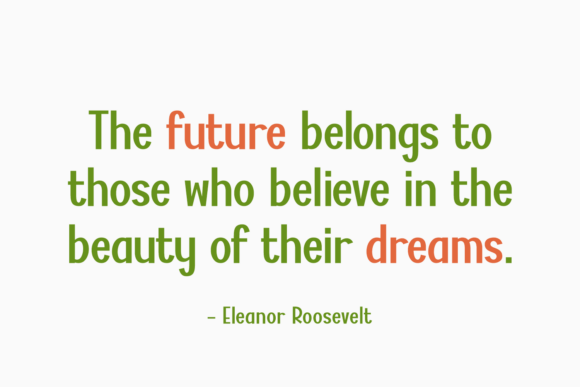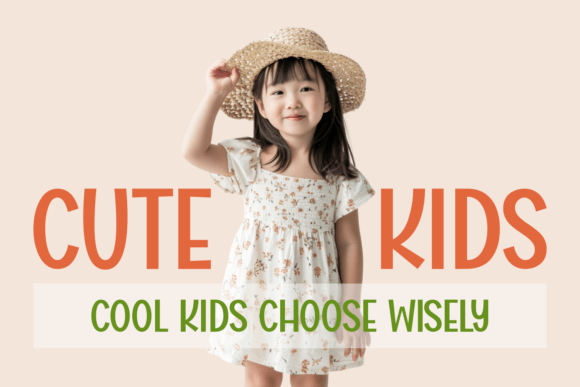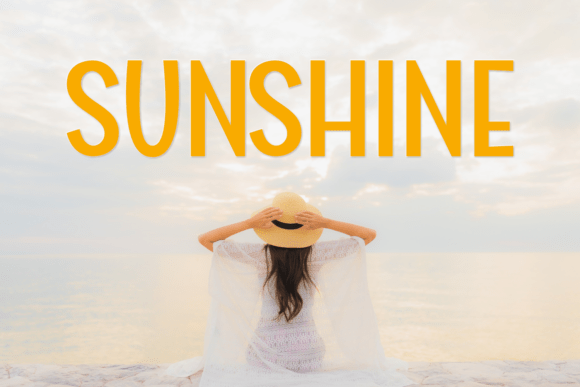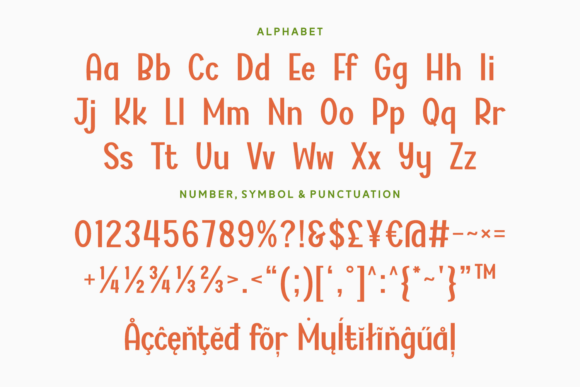
Introduction to Hello Lemon Font
Have you ever stared at a blank canvas, eager to bring a fresh idea to life, only to be stopped by the daunting task of choosing the perfect font? We’ve all been there, struggling to find the perfect combination of style and readability to convey our message. But what if I told you that there’s a font that can make your creative project shine, effortlessly exuding a friendly and approachable vibe?
Enter Hello Lemon Font, a delightful sans serif font that’s perfect for designers seeking a lighthearted and modern aesthetic. Its clean lines and soft appearance make it highly readable and appealing, making it an ideal choice for a variety of uses, from children’s books to social media graphics. With its free download and high-quality design, Hello Lemon Font is a valuable resource for any designer looking to add a touch of whimsy and charm to their work.
Whether you’re working on a branding project, designing greeting cards, or creating educational materials, Hello Lemon Font is sure to deliver a fresh and optimistic look that’s sure to captivate your audience.
Key Features of Hello Lemon Font
- High-quality design for creative projects, ideal for logos, branding, and typography.
- Designed at a high resolution of 300 DPI, ensuring crisp and clear typography in print and digital applications.
- Perfect for designers looking for a unique and modern font to elevate their creative project, with a size of 30KB.
- Suitable for use in a variety of design contexts, from web design to print materials, and can be easily scaled up or down for different applications.
Honest Review: Hello Lemon Font
As a designer, I’m always on the lookout for high-quality design resources to elevate my creative projects. Recently, I stumbled upon the Hello Lemon Font, and I must say it’s been a game-changer.
Here are some things that work well for me: ✨
- High-quality design: The font is crisp and clean, with a modern feel that’s perfect for contemporary projects.
- Transparent background: The font’s transparent background makes it easy to layer and combine with other design elements.
- Limited character set: While the font is beautiful, the character set is relatively small, which can be a limitation for longer texts.
Overall, I’m really impressed with the Hello Lemon Font. While it’s not perfect, its high quality and versatility make it a valuable addition to any designer’s toolkit. With a little creativity, I’m confident that designers can work around its limitations and achieve amazing results.
Getting the Most Out of Hello Lemon Font
To get the most out of this font, use it in conjunction with other design elements to create a cohesive and eye-catching visual identity. Experiment with different font sizes, colors, and arrangements to find the perfect balance for your project.
The Hello Lemon Font is commonly used in branding, logos, and graphics for creative projects. Its unique style and high-quality design make it an excellent choice for designers looking to add a personal touch to their work.
Alternatives to Hello Lemon Font
Lemonada Font
Lemonada Font is a high-quality, modern sans-serif font perfect for creative projects requiring a clean and minimalistic look. It’s ideal for logos, branding, and web design.
Lemonada Font offers a transparent background, making it easy to use on various design elements. While it shares similarities with Hello Lemon Font in terms of its clean design, Lemonada Font has a more geometric and modern feel.
Cream Soda Font
Cream Soda Font is a free download font ideal for creative projects needing a playful and casual vibe. It’s great for advertisements, social media graphics, and promotional materials.
Cream Soda Font has a more relaxed feel compared to Hello Lemon Font, making it perfect for projects requiring a friendly and approachable tone.
Is Hello Lemon Font suitable for designs with a transparent background?
Yes, Hello Lemon Font has a transparent background, making it perfect for designs that require a high level of customization and flexibility. You can easily combine it with other design elements and adjust its opacity to suit your design needs.